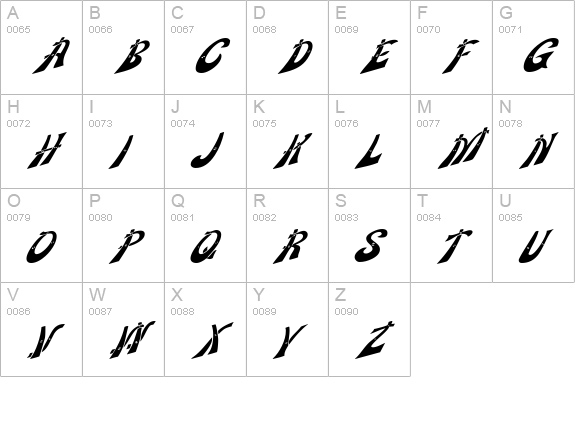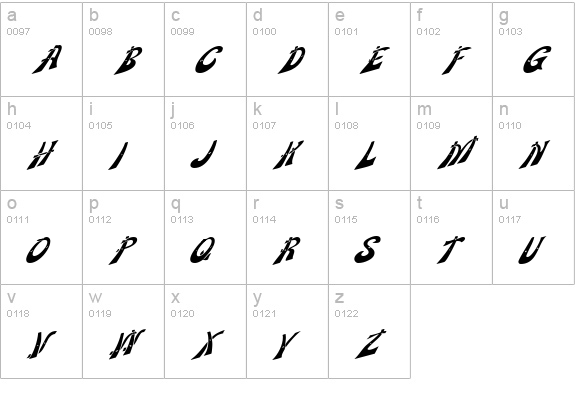
WankleDisplayCaps Font Details
Introducing WankleDisplayCaps, a captivating font that is sure to add a touch of elegance and sophistication to any design project. With its unique and eye-catching display caps style, this font is perfect for headlines, logos, branding, and much more. WankleDisplayCaps boasts a seamless blend of modernity and classic design elements, making it versatile and suitable for a wide range of creative endeavors. Its sleek and sleek lines are meticulously crafted to ensure legibility and readability, even at small sizes. But what truly sets WankleDisplayCaps apart is its affordability. We believe that everyone should have access to high-quality fonts, which is why we are delighted to offer this font to you for free. That's right! WankleDisplayCaps is freely available to download at FontsMarket.com, allowing you to enhance your projects without breaking the bank. Whether you're a graphic designer, a web developer, or simply someone who appreciates beautiful typography, WankleDisplayCaps will undoubtedly leave a lasting impression. So why wait? Download this stunning font today and elevate your designs to new heights.